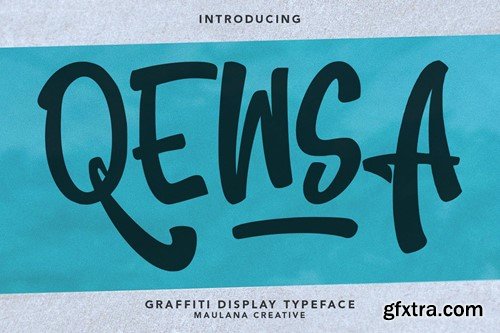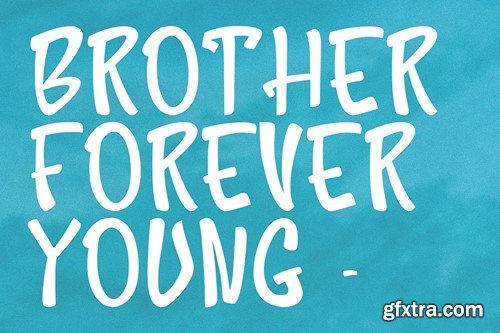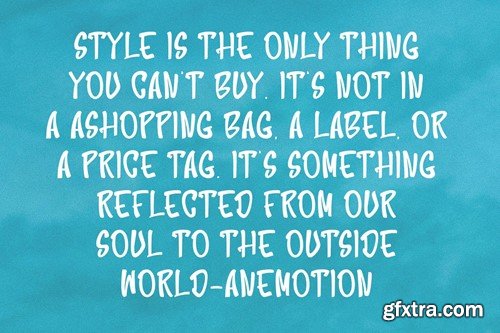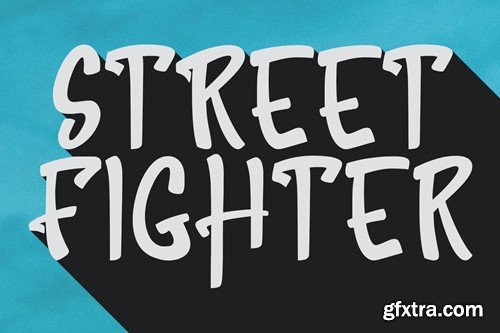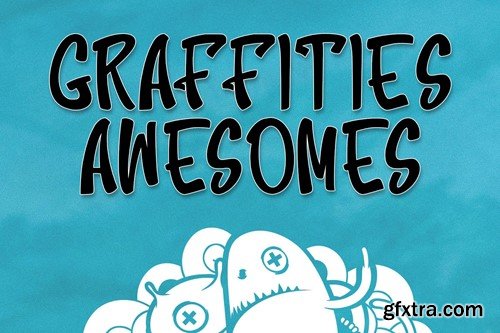
Qewsa 格里菲斯展示字体 7HY43AJ
Qewsa Graffiti Display Typeface
Qewsa graffiti display typeface. Bold stroke, fun character with a bit of ligatures and alternates. To give you an extra creative work. Qewsa graffiti display typeface support multilingual more than 100+ language. This font is good for logo design, Social media, Movie Titles, Books Titles, a short text even a long text letter and good for your secondary text font with script or serif. Make a stunning work with Qewsa graffiti display typeface. What you get: Cheers, Maulana Creative